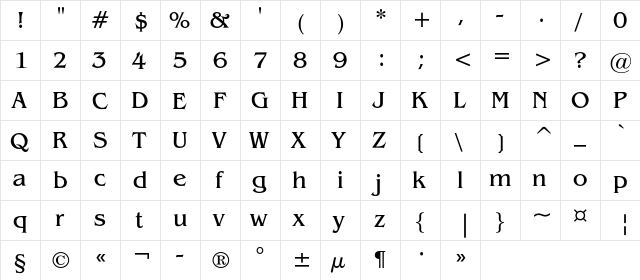
BeneficeAP Regular Font Preview
BeneficeAP Regular
Design Context for BeneficeAP Typeface
BeneficeAP offers clean, dependable letterforms without strong stylistic allegiance, making it a practical choice for designers who need flexibility.
Pro Tip: Pair BeneficeAP with a font of contrasting weight or personality to build a more expressive typographic hierarchy.